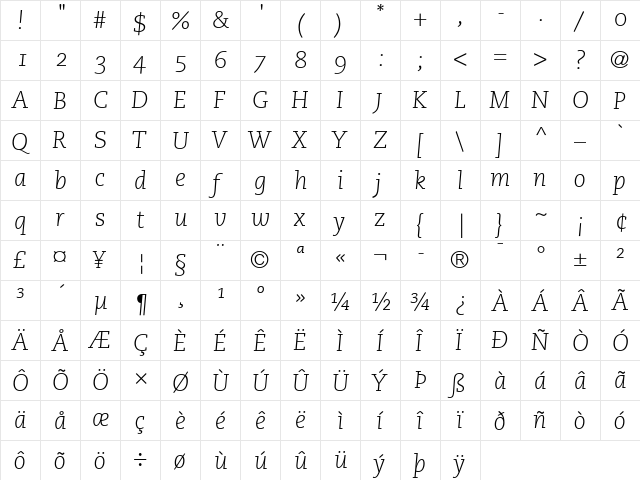
Caecilia LightOsF Italic
Design Context for Caecilia LightOsF Typeface
Caecilia LightOsF offers clean, dependable letterforms without strong stylistic allegiance, making it a practical choice for designers who need flexibility. The dynamic lean of this cut emphasises speed and emphasis in any layout. Its slender proportions lend an understated elegance to any composition.
Pro Tip: Use Caecilia LightOsF for emphasis, pull quotes, and subheadings where its slanted energy can add rhythm to the layout.